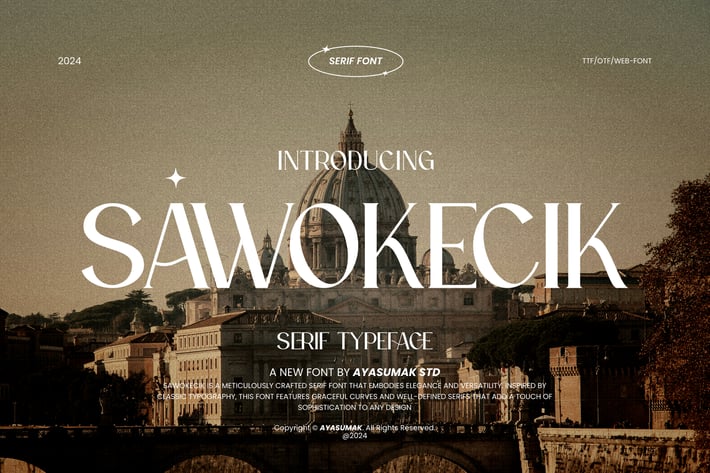
Sawokecik - Vintage Elegant Serif Font
Introducing Sawokecik - Vintage Elegant Serif Font - a Vintage Elegant Wedding Typeface excellent used for Heading or Title, Logotype, Merchandise, Clothing, Magazine, Food & Beverages and many more.
* Numeral, Symbol, Punctuations & Ligatures